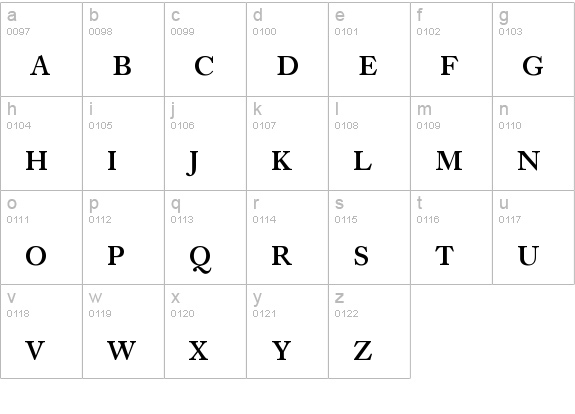
Caslon Book BE Regular Small Caps & Oldstyle Figures Font Details
Caslon Book BE Regular Small Caps & Oldstyle Figures is a comfortable, highly readable variant in the Caslon typeface family \xE2\x80\x94 well suited to long-form body text, articles, and editorial content.
Caslon Book BE Regular Small Caps & Oldstyle Figures font is a timeless and elegant typeface that exudes sophistication and classic charm. With its refined design and delicate details, this font is perfect for any project that requires a touch of elegance and professionalism. The small caps and oldstyle figures add a unique flair to the overall appearance, making it stand out from other fonts. What makes this font even more appealing is that it is available for free download at FontsMarket.com. Whether you're working on a personal project or a professional design, Caslon Book BE Regular Small Caps & Oldstyle Figures font is a versatile choice that will elevate your work to the next level. Download it today and add a touch of timeless beauty to your designs.